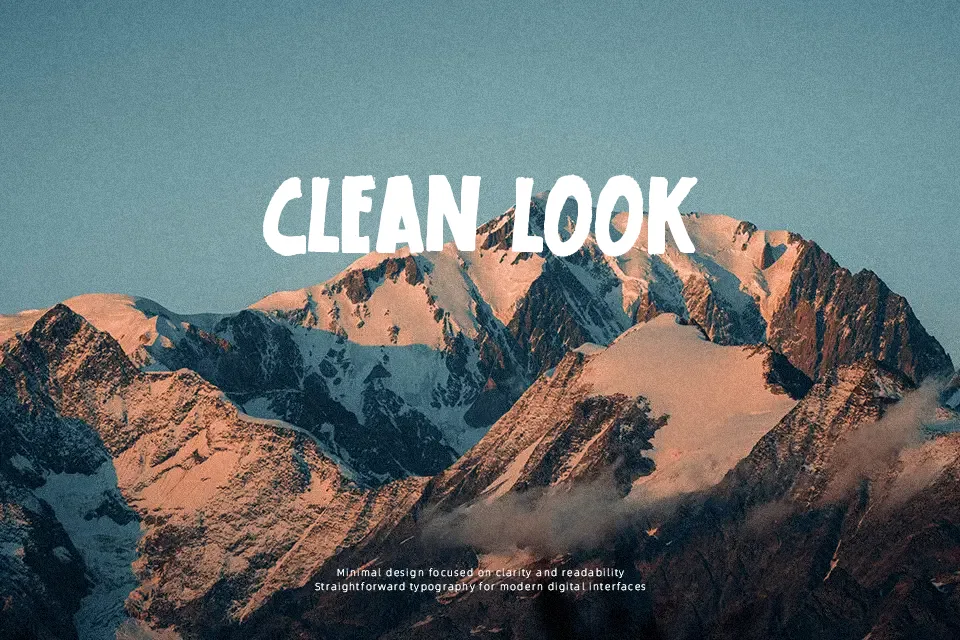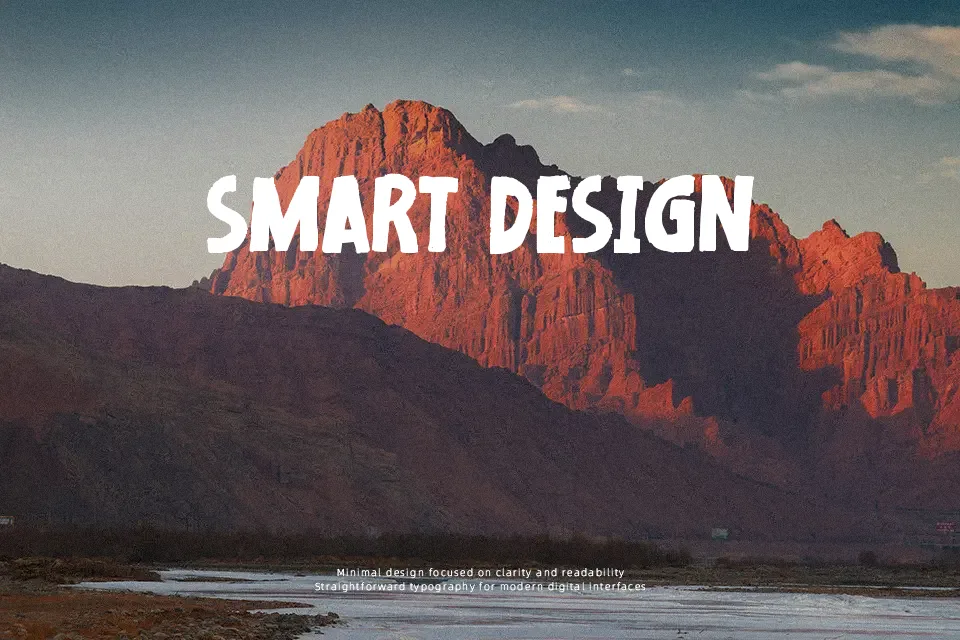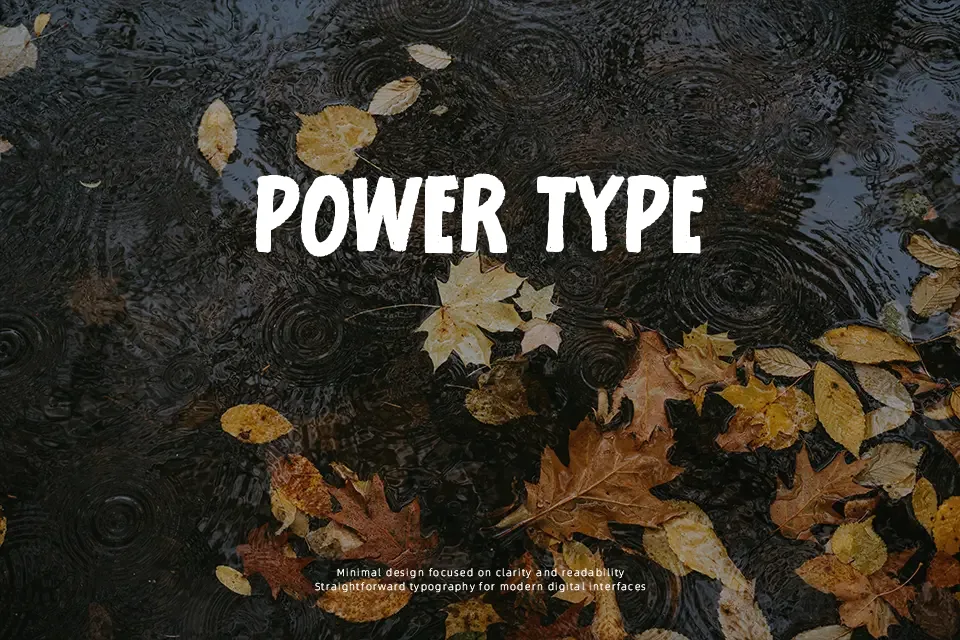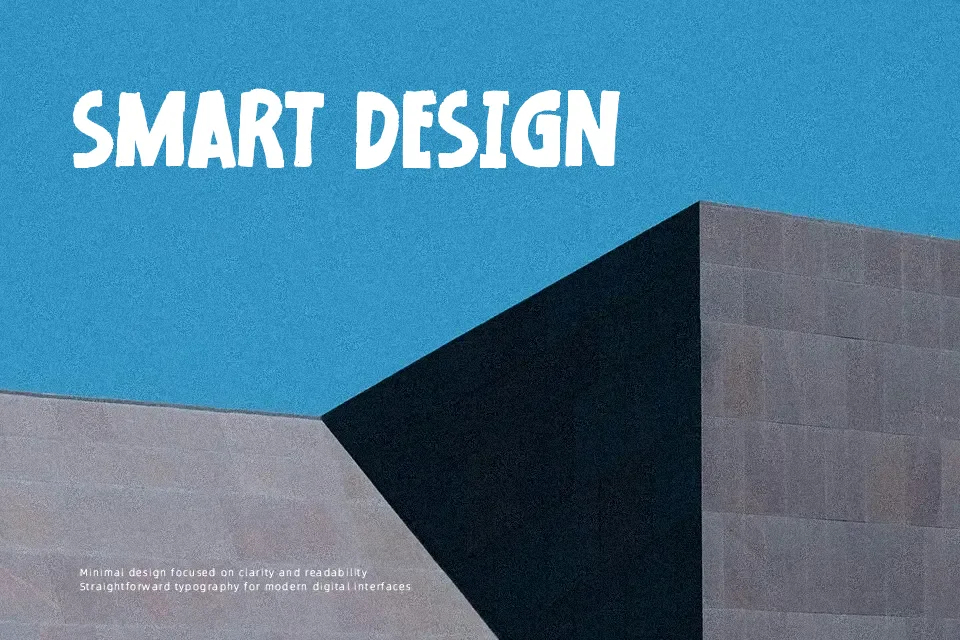
Aalama Font
There’s a satisfying roughness to Aalama — strokes that feel hand-drawn but carry enough structure to stay legible at display sizes. The letterforms lean casual and kinetic, with uneven edges and a natural flow that reads more street-authentic than polished studio. It holds up well on poster headlines, product labels, and social media quote graphics where a raw, lived-in character is the point. That said, the rough texture breaks down at small sizes, and the informal construction makes it a poor fit anywhere tone needs to feel refined or institutional. If you’re after clean geometric display type, Aalama will feel too loose. For projects where “authentic” is doing real creative work, it earns its place.
Best For:- Streetwear brand logos and apparel graphics
– Bold poster and event flyer headlines
– Product packaging with a handcrafted edge
– Social media quote overlays and photography headers
Not Ideal For:- Small-size body or paragraph text
– Corporate reports or professional documents
– Formal wedding or luxury stationery
– UI labels or navigation elements
Perfect for branding, logo, and packaging, with a bold and brush style.